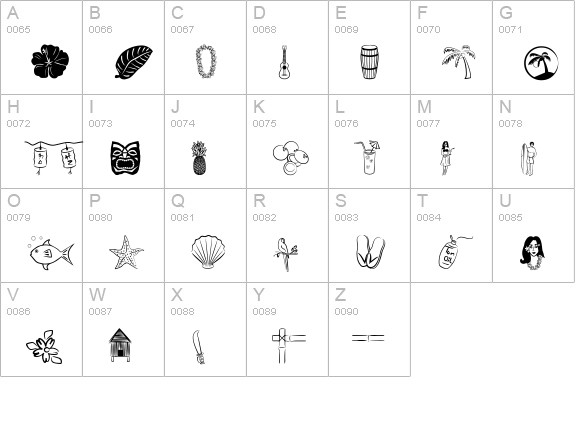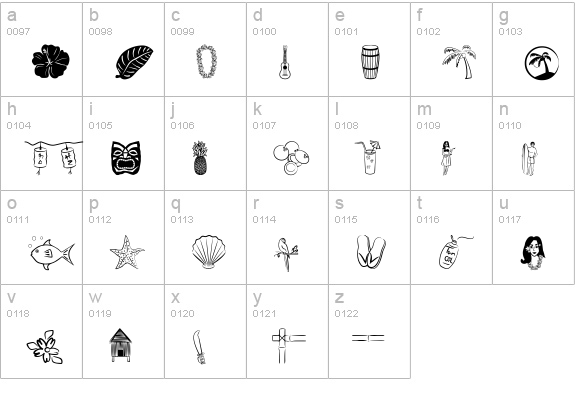
Tropicana BV Font Details
Introducing Tropicana BV, a captivating and versatile font that effortlessly captures the essence of tropical paradise. With its smooth curves and playful strokes, this font exudes an air of exotic beauty, making it the perfect choice for any design project that seeks to transport its audience to a sun-drenched beach or a lush rainforest. Tropicana BV is not only aesthetically pleasing but also highly functional. Its legibility and readability are exceptional, ensuring that your message is communicated with clarity and impact. Whether you're designing a logo, a poster, a website, or any other creative endeavor, this font will elevate your work to new heights. One of the most remarkable aspects of Tropicana BV is that it is available for free. Yes, you read that right! You can freely download this font at FontsMarket.com, where a vast collection of high-quality fonts awaits you. With just a few clicks, you can bring the tropical vibes to your design projects without spending a dime. So, why wait? Embrace the spirit of the tropics and let Tropicana BV transport your audience to a world of sun, sea, and serenity. Download this mesmerizing font today and unlock a world of creative possibilities.